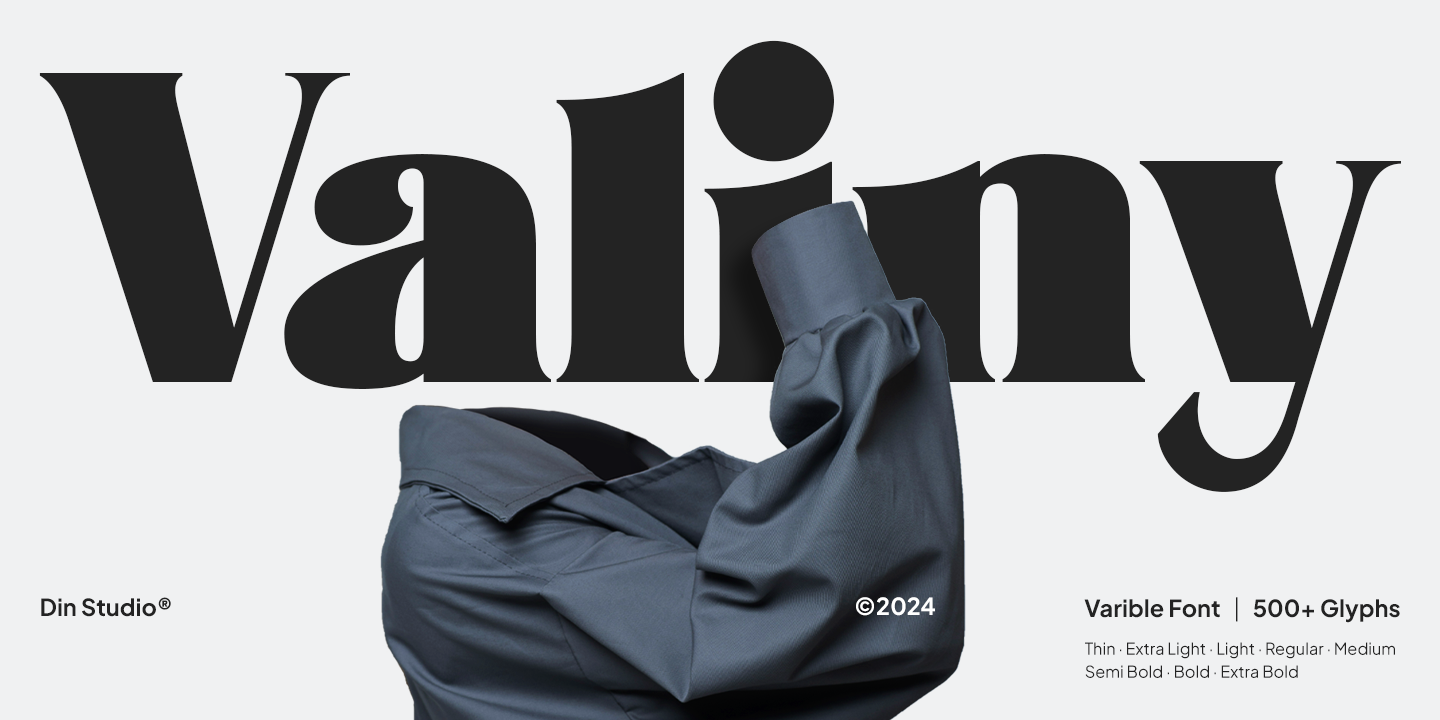
Valiny Font is ideal for premium cosmetics branding, luxury skincare packaging, sophisticated beauty salon signage, elegant spa materials, high-end fragrance labels, refined jewelry advertisements, upscale fashion accessories, and exclusive beauty product catalogs.
This font is exciting because it radiates feminine elegance and sophisticated beauty with graceful letterforms that capture the essence of luxury cosmetics and premium beauty experiences. The Valiny Font embodies the spirit of timeless glamour and refined femininity, transforming ordinary text into captivating expressions of beauty, sophistication, and the art of self-care that resonates with discerning beauty enthusiasts.
The Valiny Font family includes beauty-inspired variations such as Regular, Bold, Light, Elegant, Italic, Glamour, Condensed, and Extended versions, providing beauty brand designers with comprehensive tools to create sophisticated typography that reflects the luxury and artistry of premium beauty and cosmetics industries.
Enhance beauty communications with Valiny Font Free Download that brings luxury elegance to every premium beauty project. This sophisticatedly crafted typeface combines beauty industry aesthetics with contemporary functionality, making it perfect for cosmetics companies, luxury spas, and beauty brands targeting sophisticated consumers who appreciate quality and refinement. The font's elegant character design ensures your message conveys luxury and sophistication while maintaining excellent readability across all beauty applications. Whether you're developing cosmetics brand identities, creating beauty product packaging, or designing materials for luxury beauty services, Valiny Font delivers the sophisticated typography that speaks to beauty-conscious audiences seeking premium experiences. Its versatile design works beautifully across digital and print media while preserving the glamorous elegance that makes beauty communications feel genuinely luxurious and worthy of the sophisticated consumers who define beauty trends and appreciate the finest in cosmetic artistry and self-care excellence.